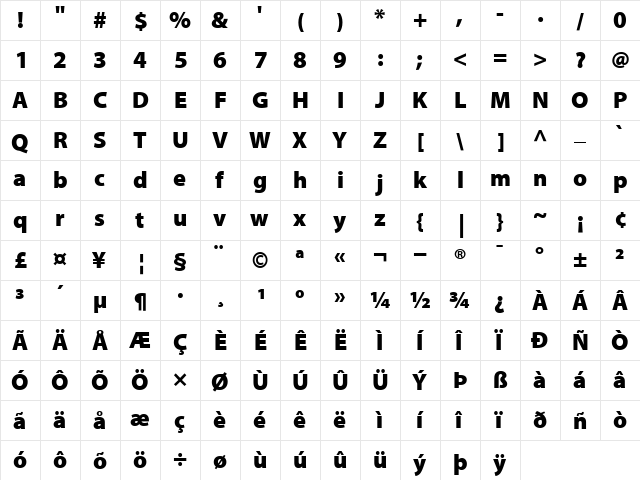
AdobeCorporateIDMyriad-Black Black
Design Context for AdobeCorporateIDMyriad-Black Typeface
AdobeCorporateIDMyriad-Black offers clean, dependable letterforms without strong stylistic allegiance, making it a practical choice for designers who need flexibility.